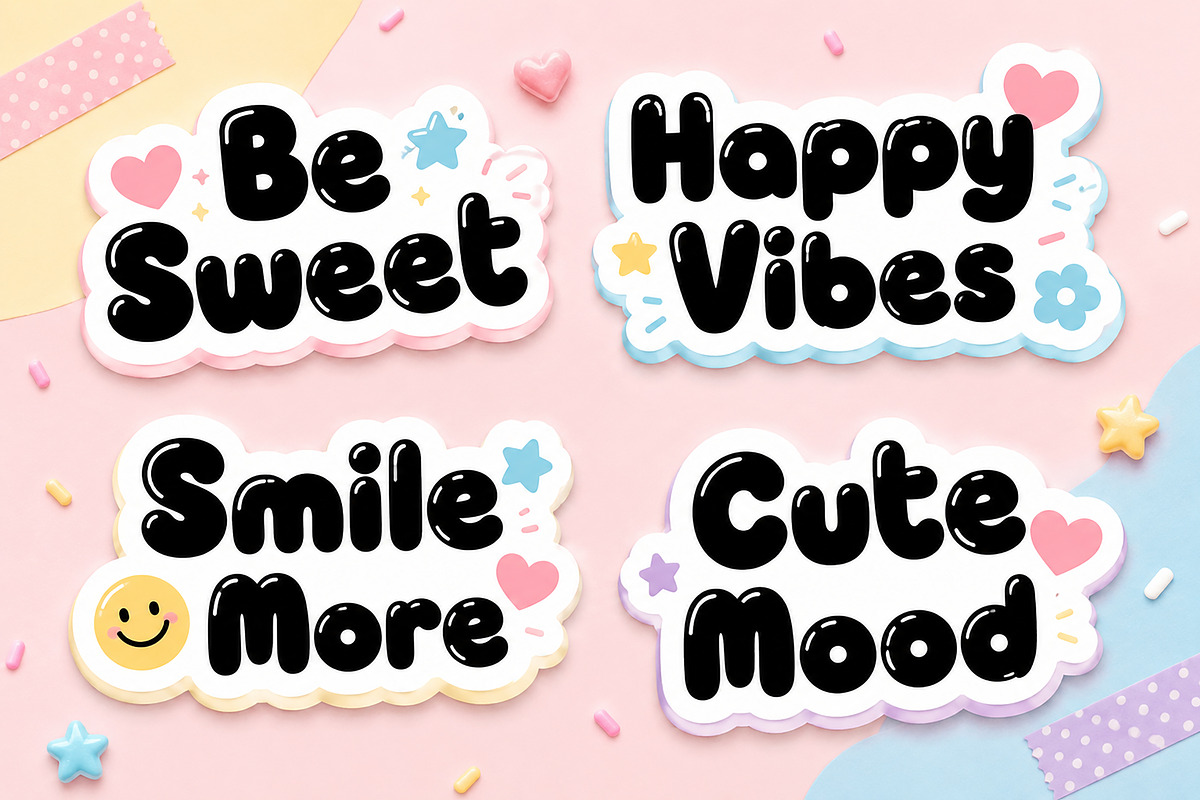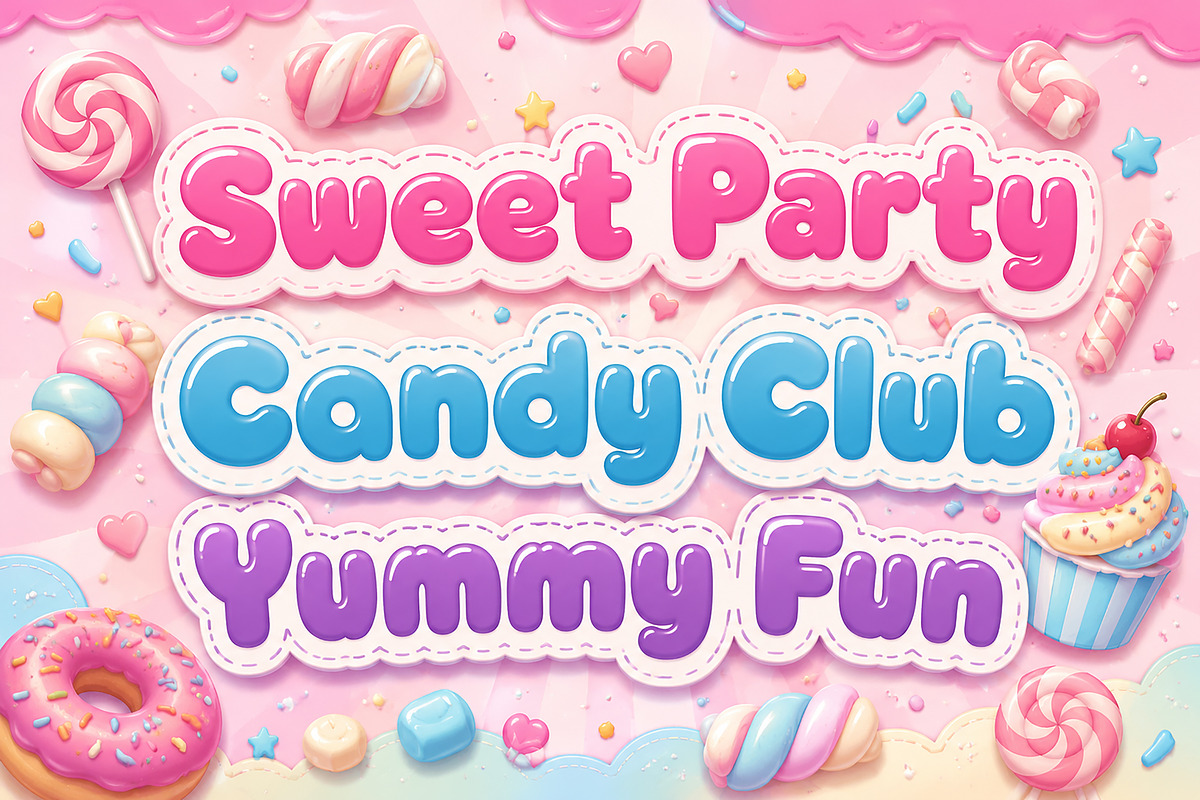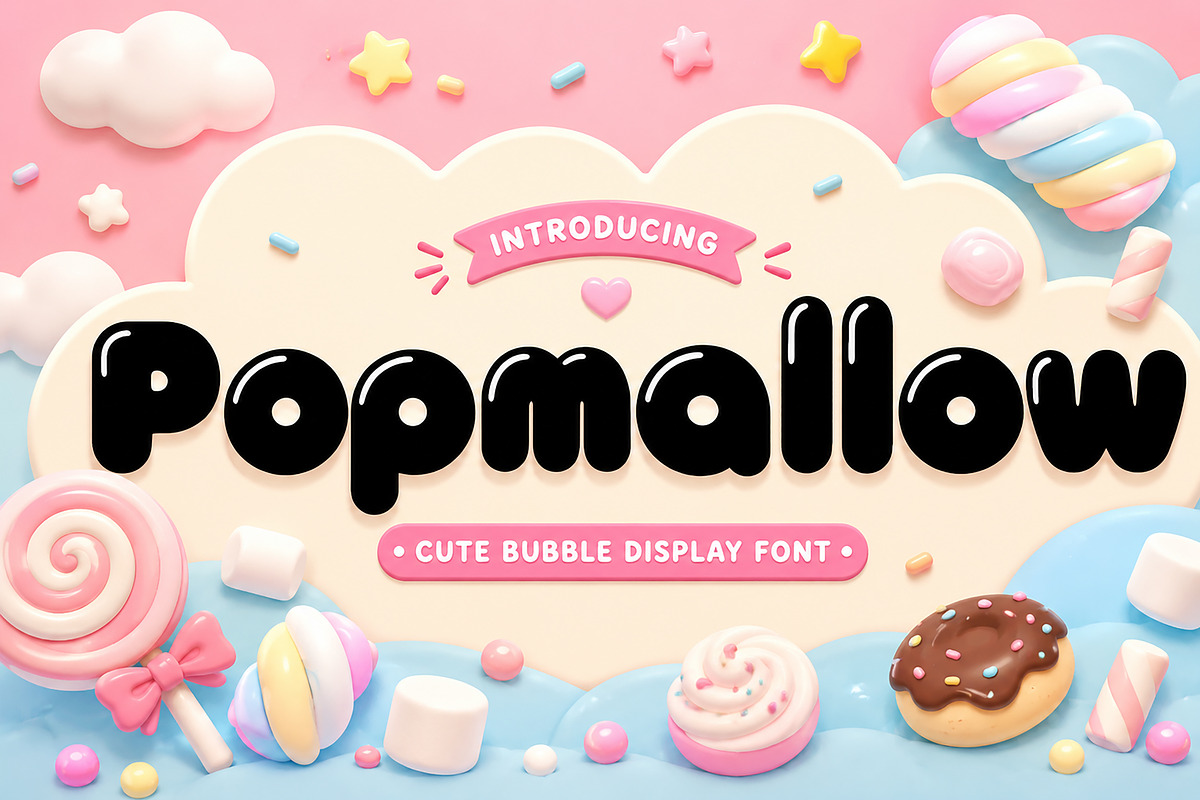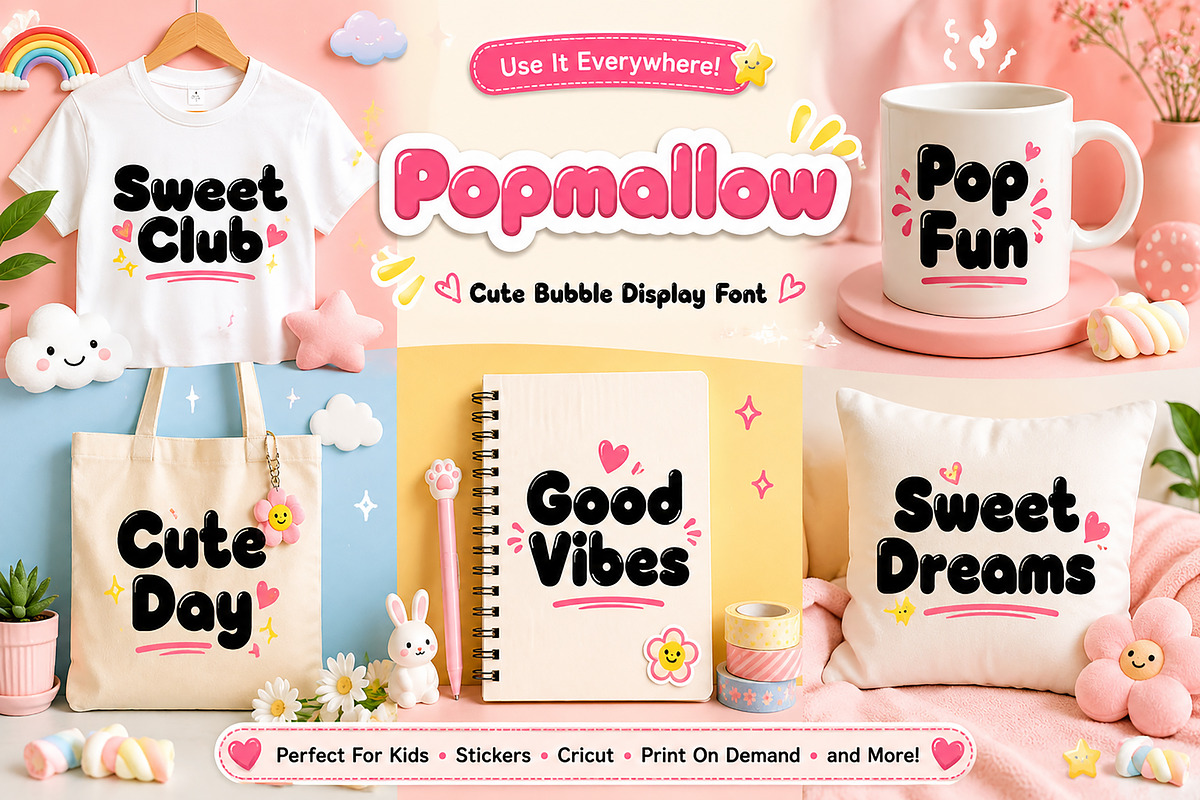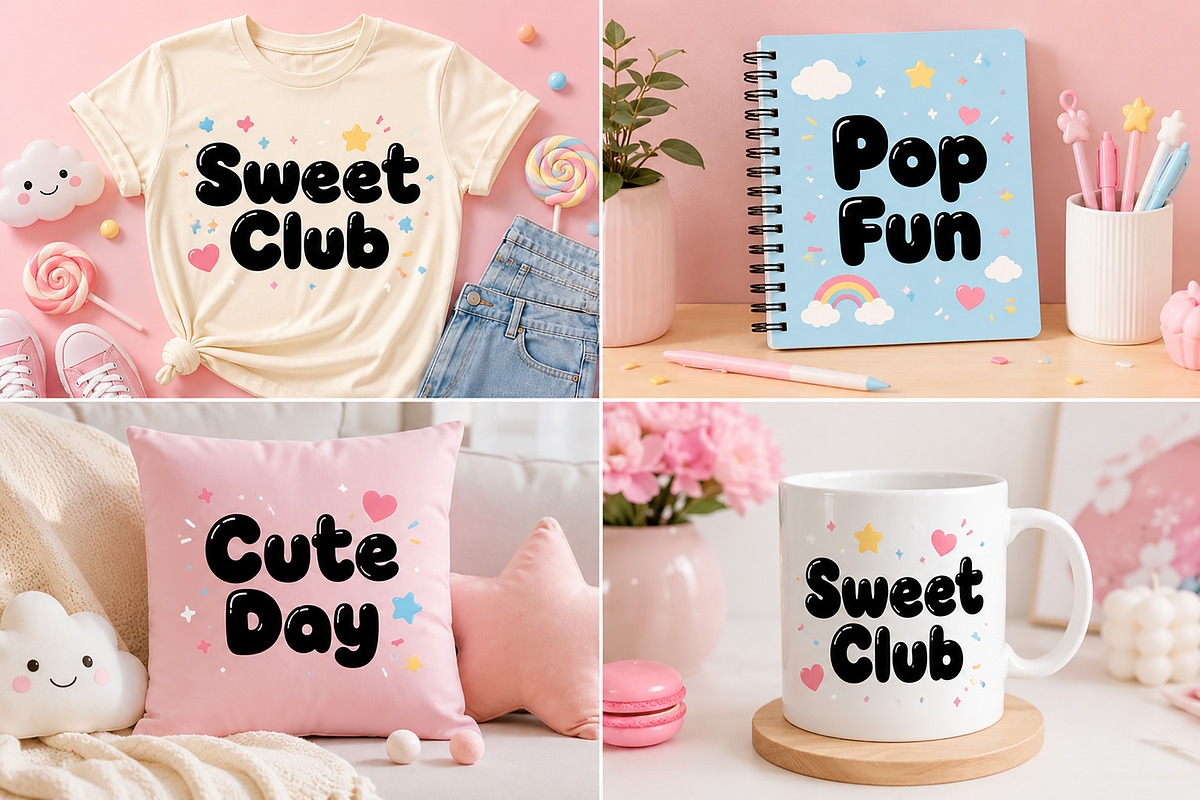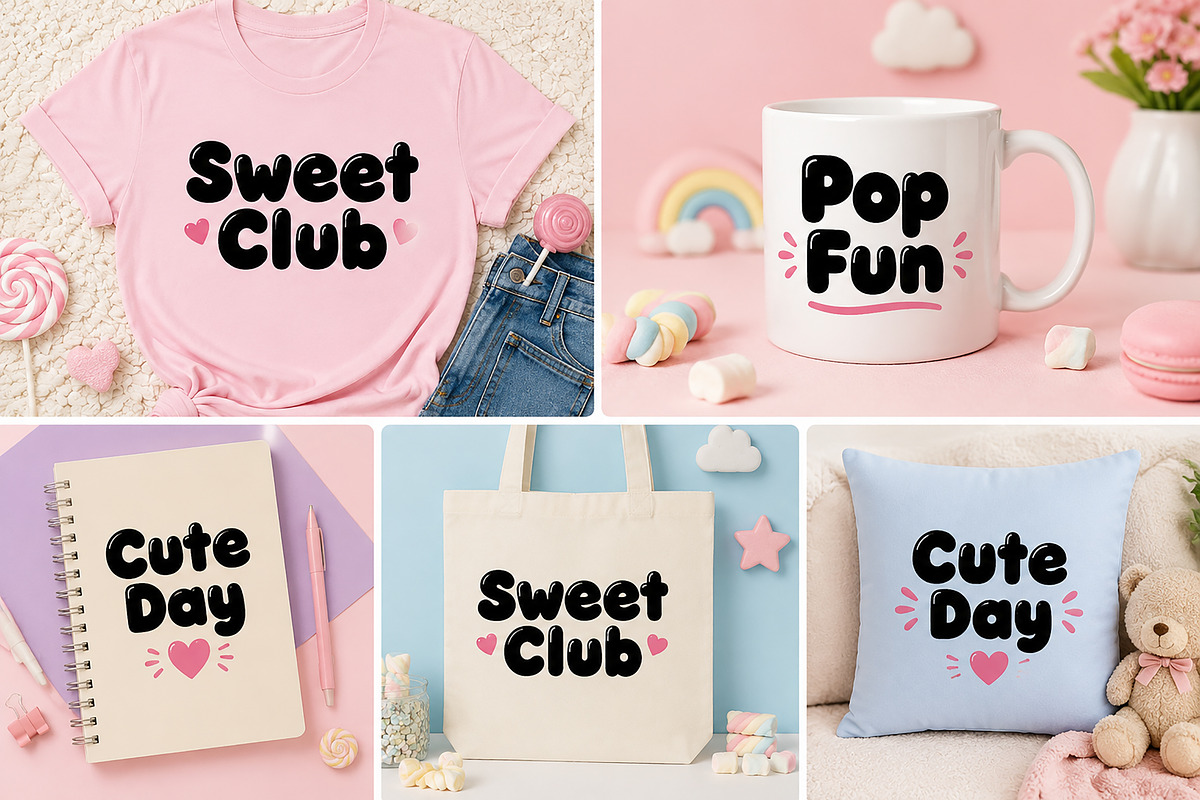
Popmallow
Playful Slab – Cute Playful Display Font
Playful Slab is a fun, cheerful, and friendly display font that combines the charm of playful typography with the strength of a slab serif style. Designed with rounded edges, bold letterforms, and a whimsical personality, this font is perfect for projects that need a cute, happy, and eye-catching look.
Whether you're creating children's books, classroom materials, stickers, Cricut projects, toy packaging, nursery decor, greeting cards, social media graphics, or playful branding, Playful Slab brings warmth and creativity to every design.
Its bold and highly readable characters make it ideal for headlines, logos, posters, product packaging, merchandise, and print-on-demand products. The playful curves and friendly appearance help your designs stand out while maintaining excellent readability.
Kids Book Covers
Children's Posters
Classroom Resources
Cricut & Craft Projects
Stickers & Labels
Greeting Cards
Nursery Decor
Toy Packaging
T-Shirt Designs
Mug Designs
Tote Bags
Pillow Prints
Playful Branding
Printable Designs
Bring joy, creativity, and playful energy to your next design project with Playful Slab!